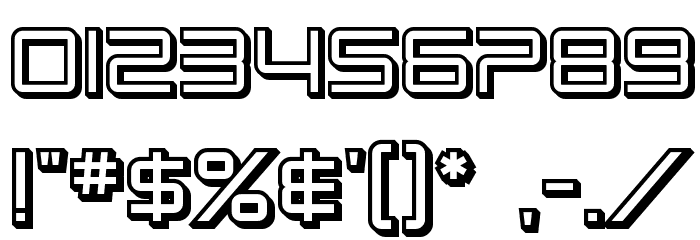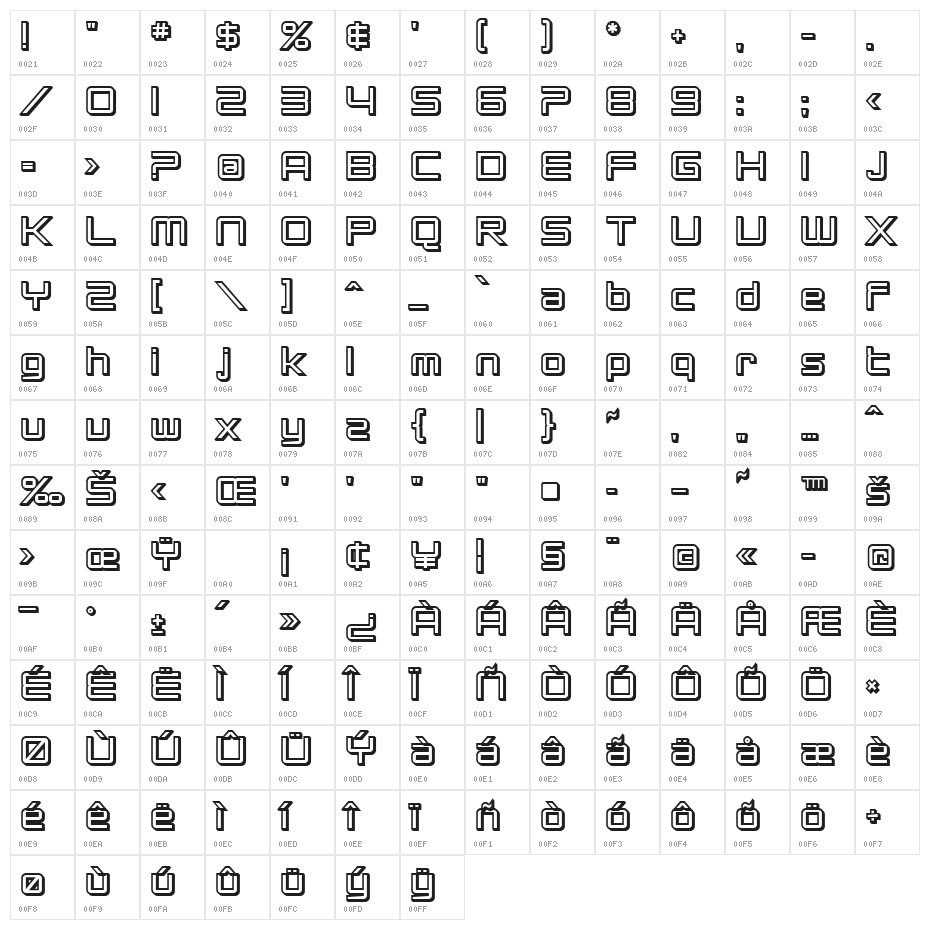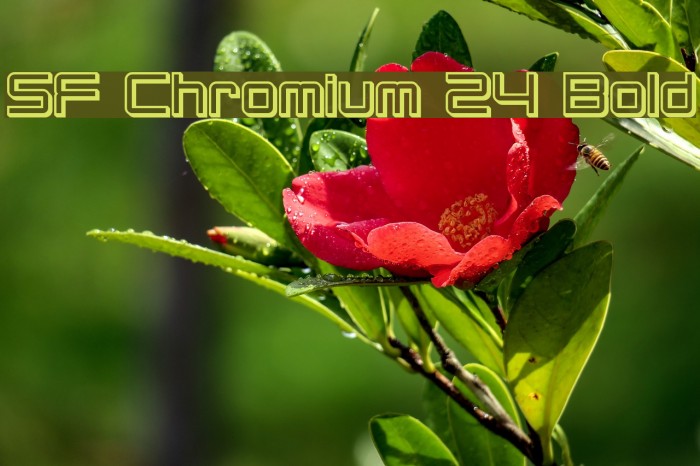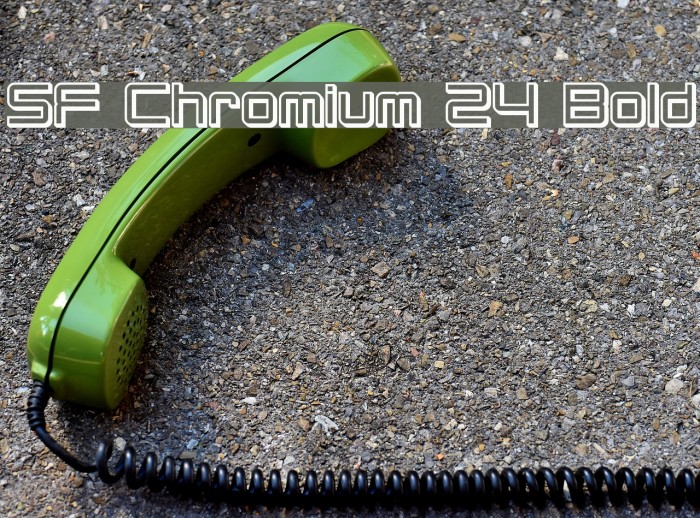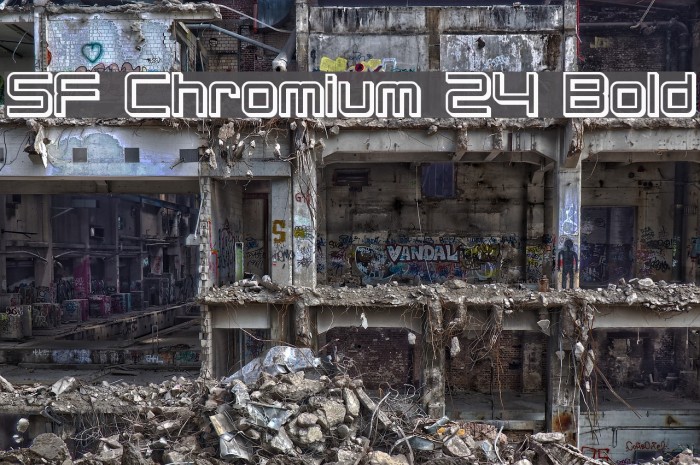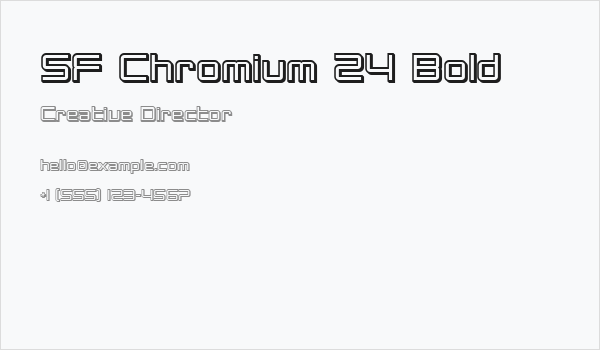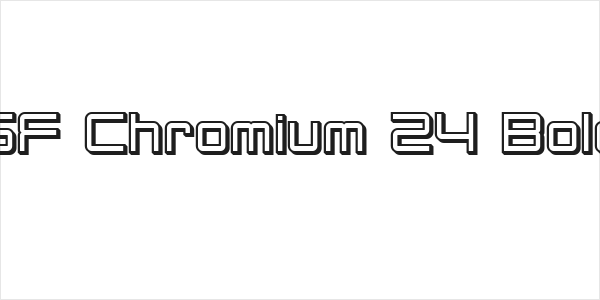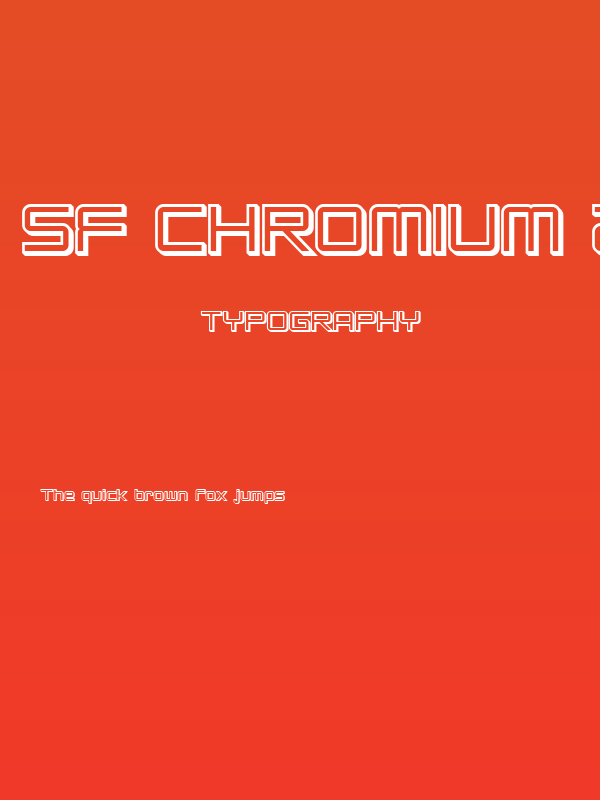
SF Chromium 24 Bold Font
SF Chromium 24 Bold Description
This font features a bold, futuristic design with a distinct outline style. Each character is constructed with a double-line effect, creating a hollow appearance that is both modern and eye-catching. The geometric shapes are consistent throughout, providing a sense of uniformity and balance. The uppercase and lowercase letters maintain a similar width, enhancing readability while preserving the font's unique aesthetic. The numerals and special characters are crafted with the same attention to detail, ensuring a cohesive look across all elements. This font is ideal for projects that require a strong, contemporary presence.
| Proposed Projects | Ideal for technology branding, sci-fi themed designs, video game titles, and modern advertising campaigns. |